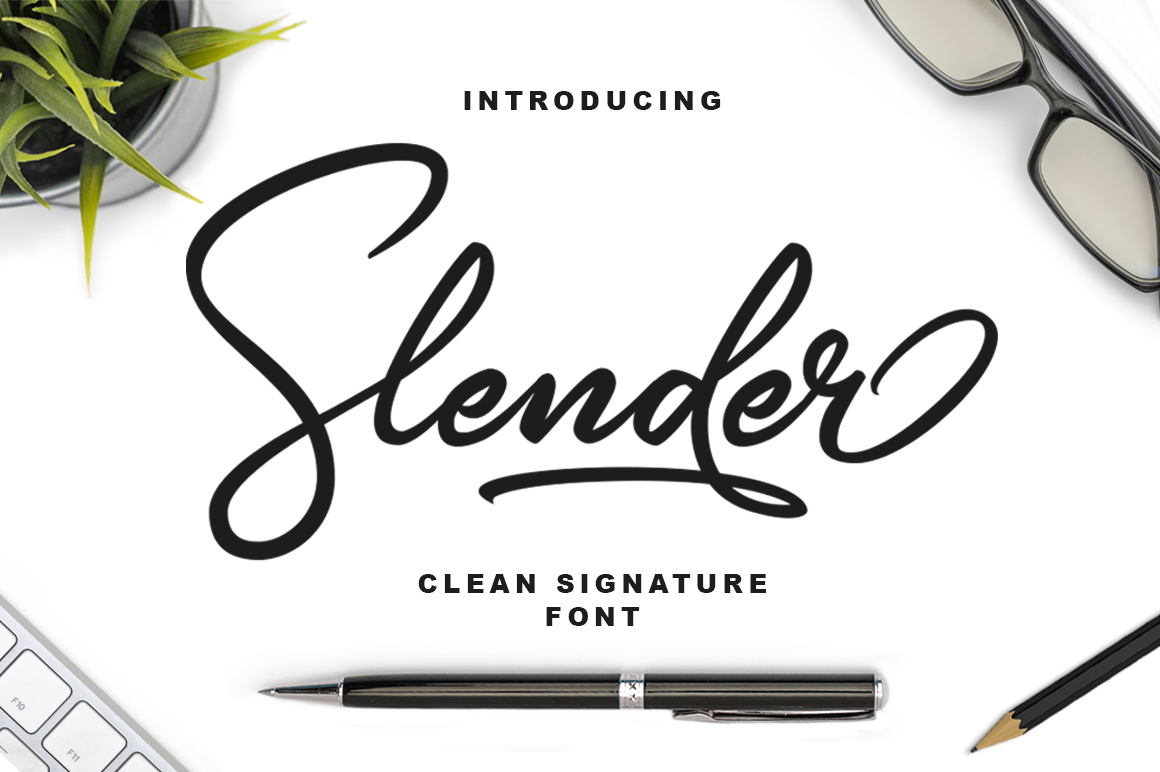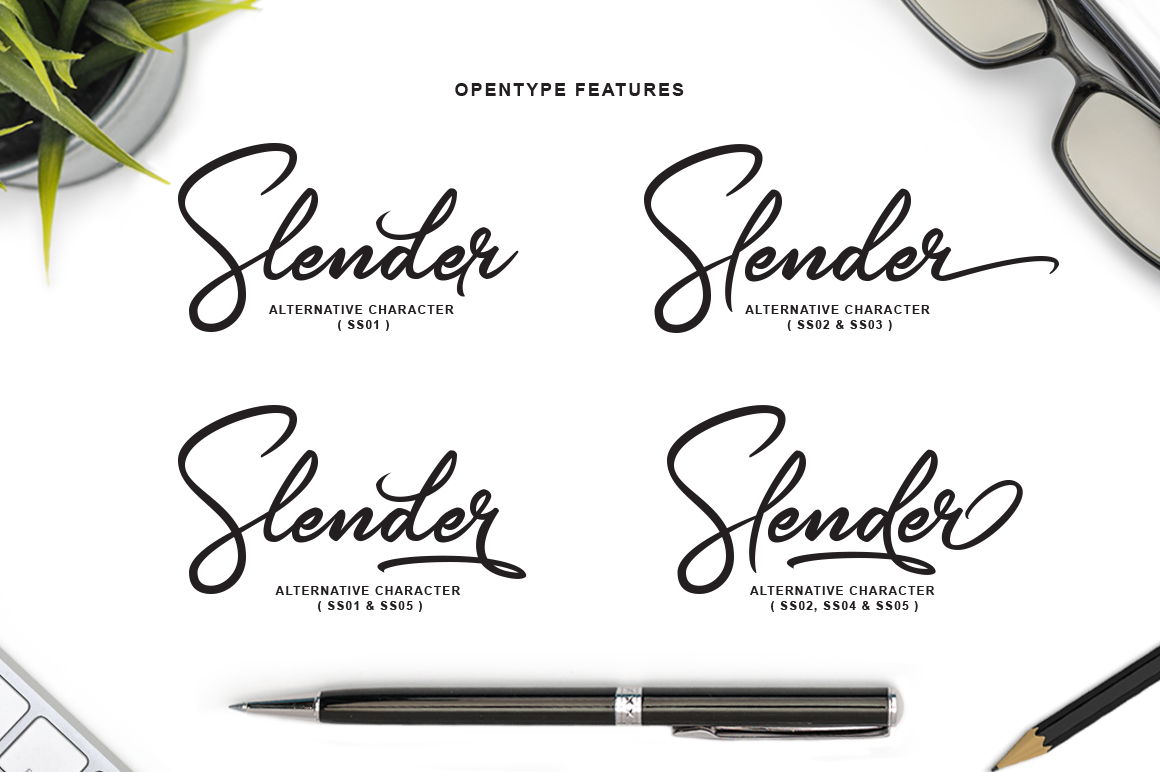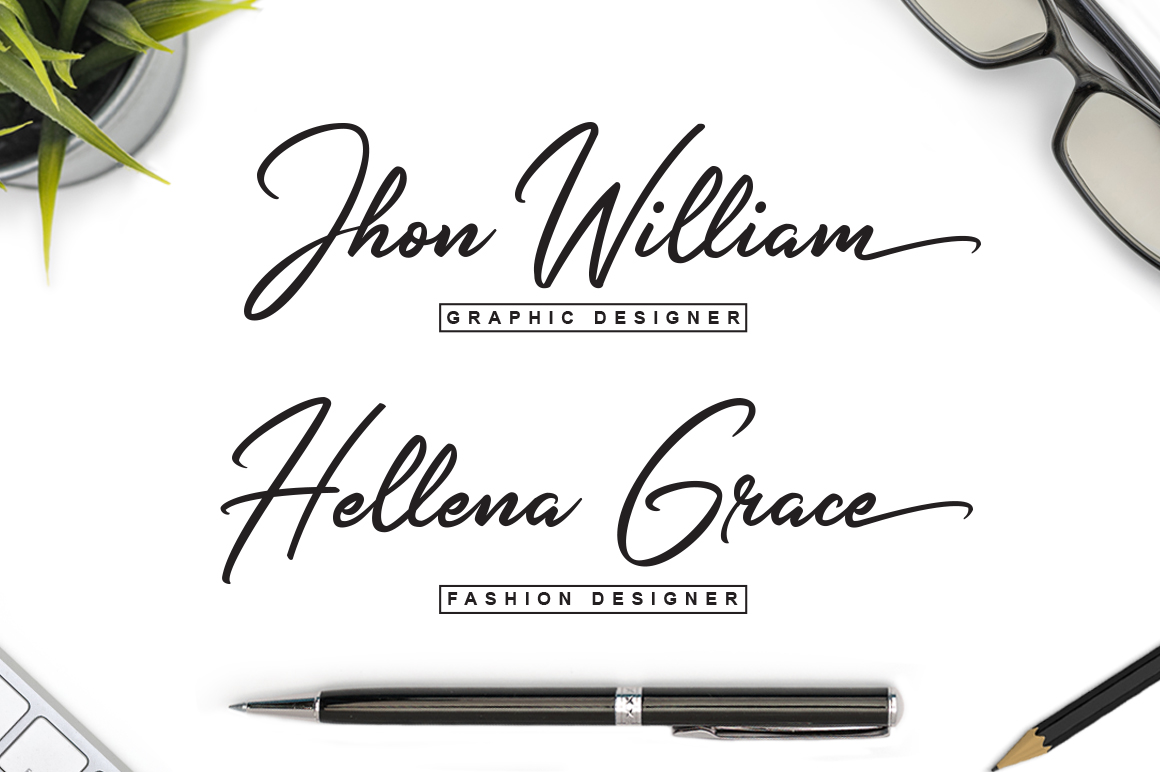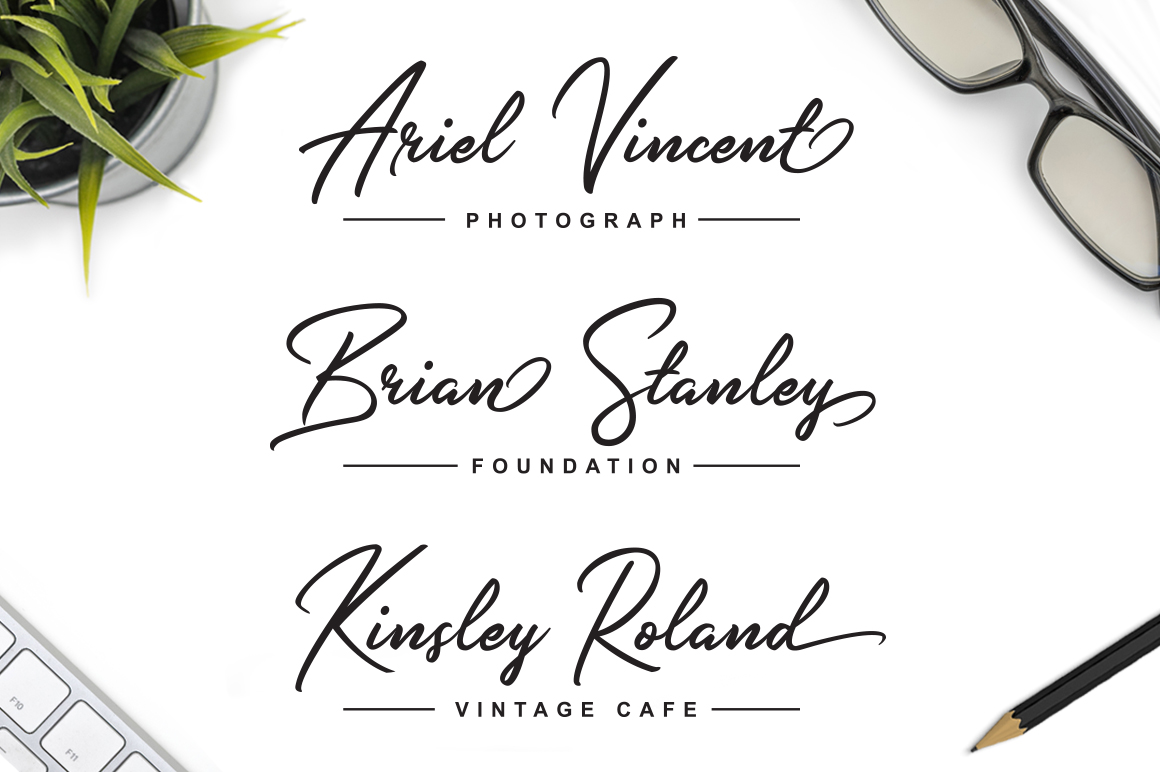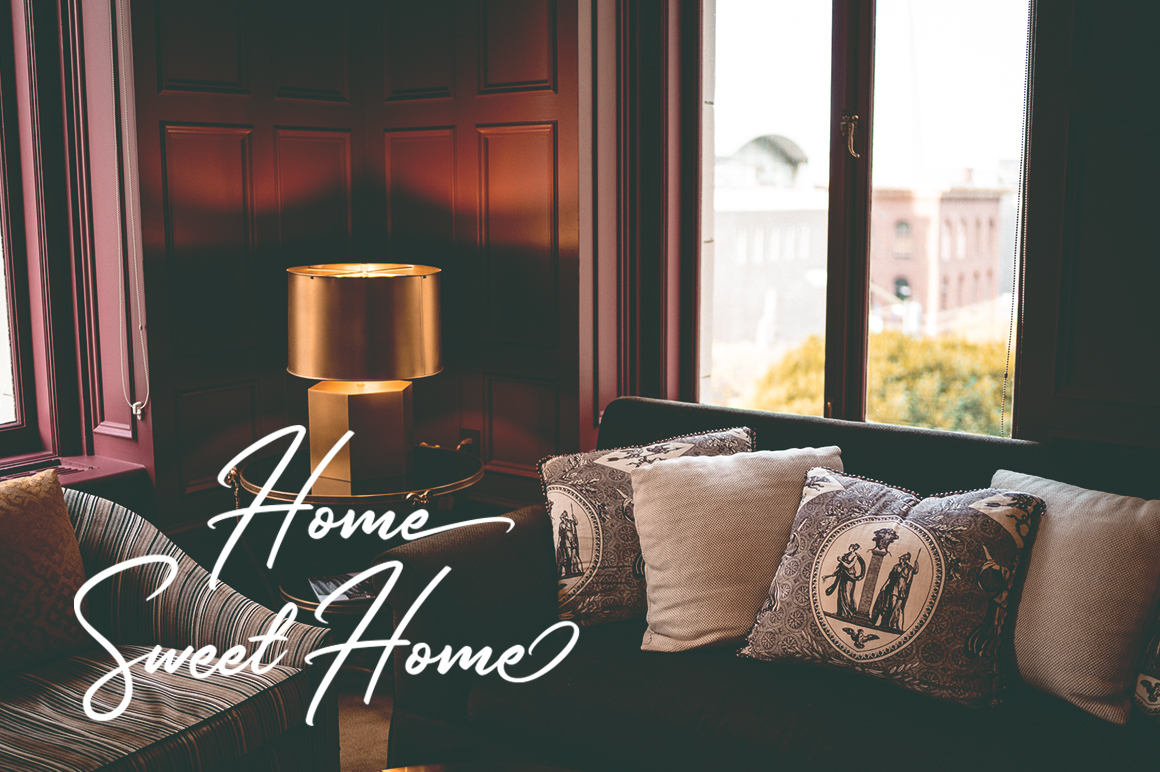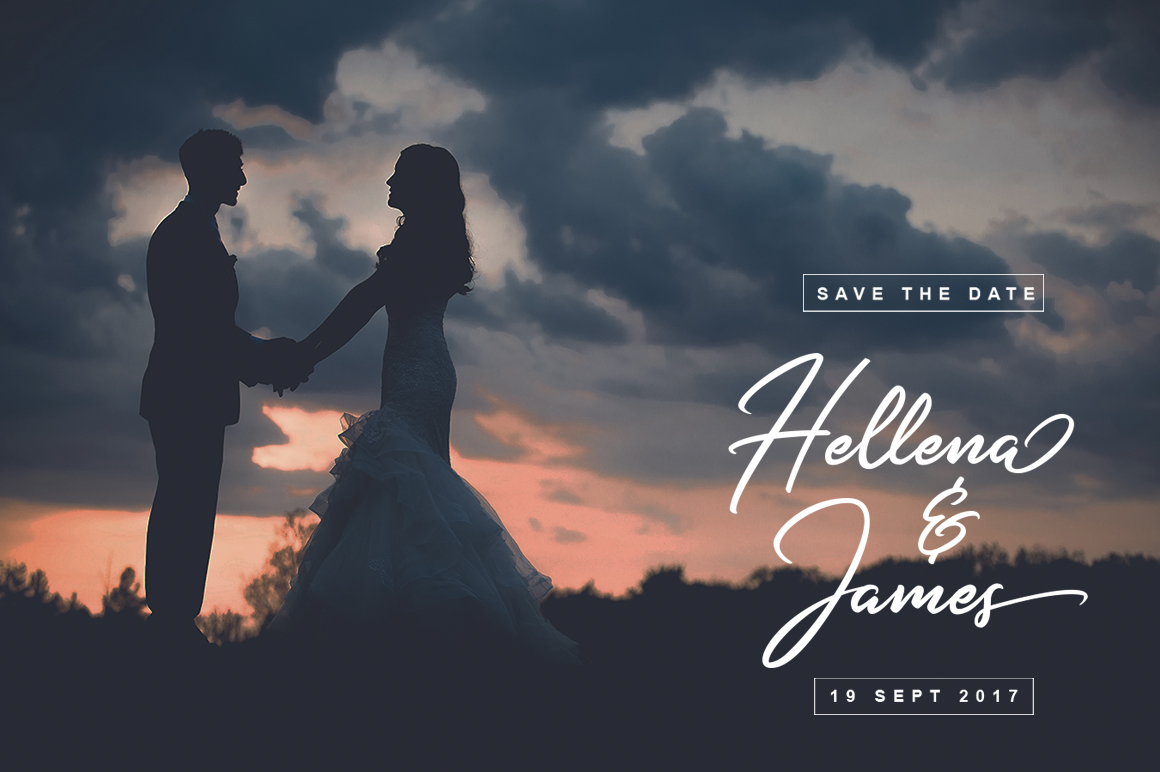
Slender Font
About Slender Font
Inspired by handwritten signatures and stylish handwriting, Slender is a great font for giving your designs a handcrafted yet modern feel. This clean script looks great in both modern and retro designs.